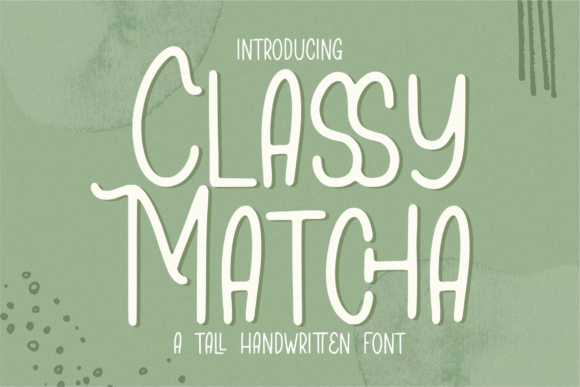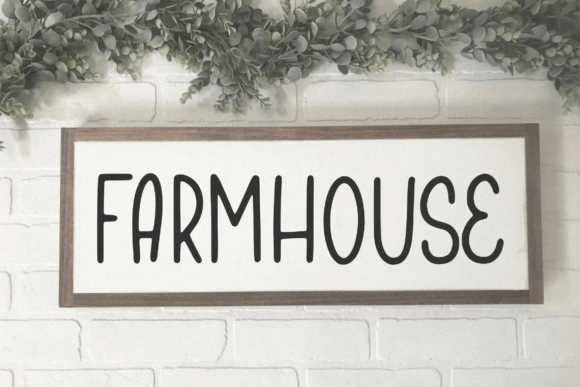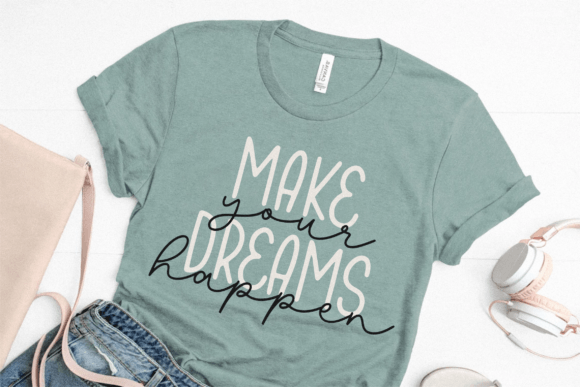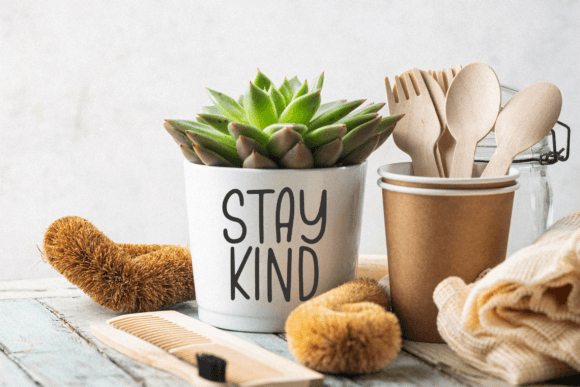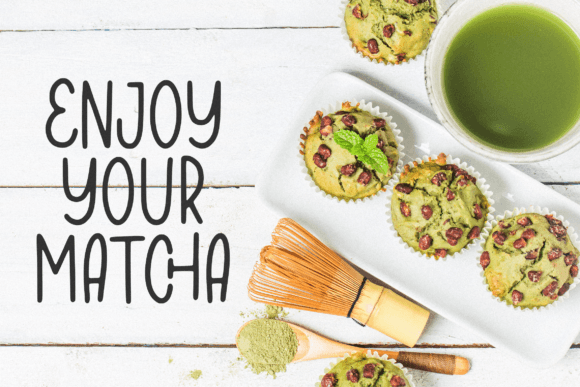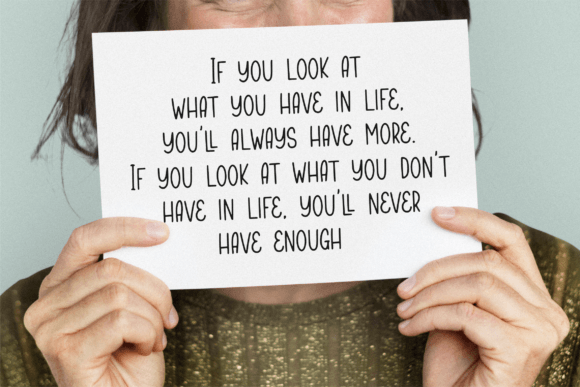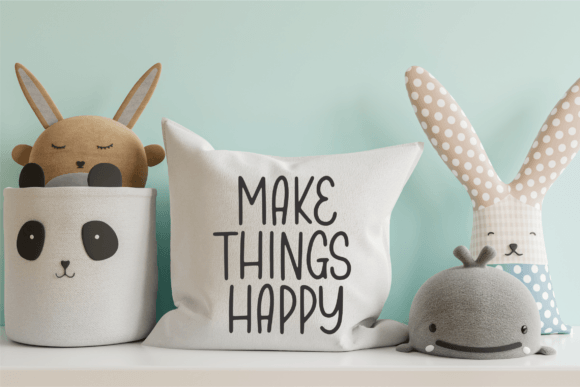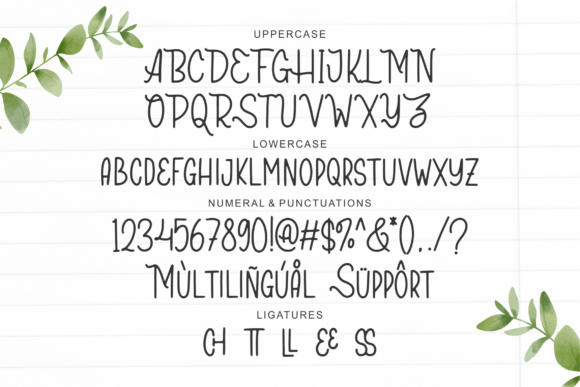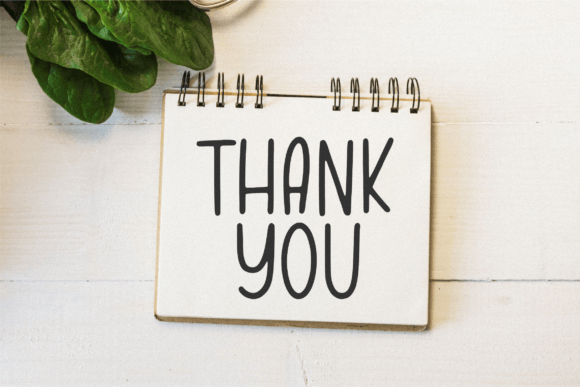
Classy Matcha Font
About Classy Matcha Font
Classy Matcha is a Tall Handwritten Font
Classy Matcha is perfect for product packaging, branding project, magazines, social media, weddings, or just used to express words above the background.